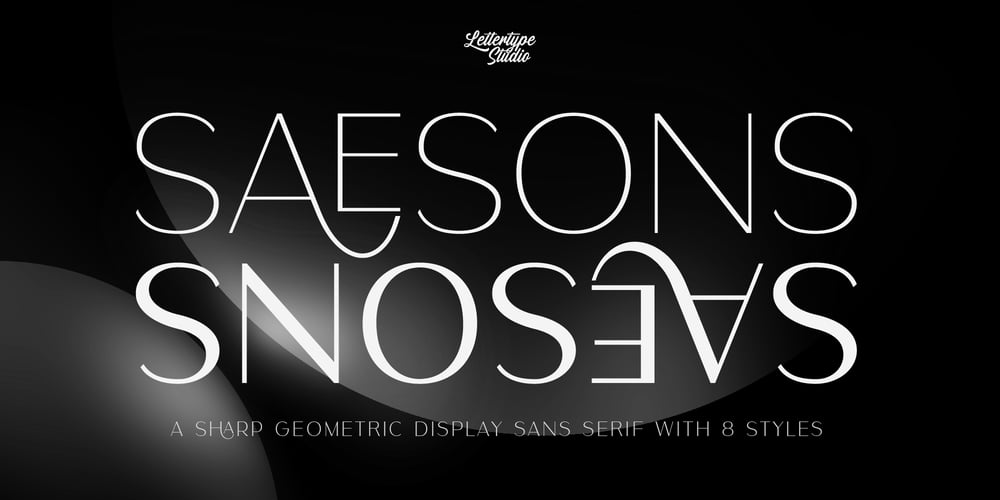
Saeson
Saeson font
Saeson Font Family was designed by Diki Pradipta Tri Atmojo and published by Lettertype Studio. Saeson contains 8 styles and family package options. Saeson is a Sharp Geometric Display Sans Serif with a ton of customization for your unique and standout designs. Saeson has over 80+ alternate glyphs for endless customization and creativity to control your projects.This font is will be perfect for web design, photography, watermarks, social media posts, advertisements, logos and branding, invitations, product designs, labels, stationery, wedding designs, product packaging, sub-headers or headers, special events, or anything else.